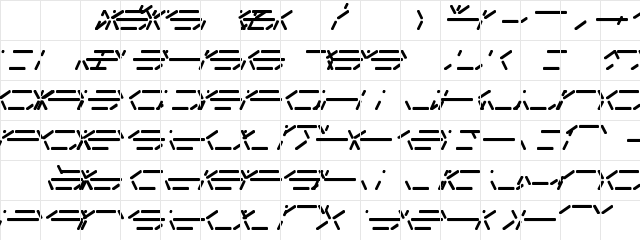
Complete Fifteen Segment Rush Regular LDR Regular glyph index. Displaying only characters natively supported by Fifteen Segment Rush Regular LDR Regular font.
Fifteen Segment Rush Regular LDR is a composed and adaptable typeface that performs quietly and consistently across a wide range of design contexts.